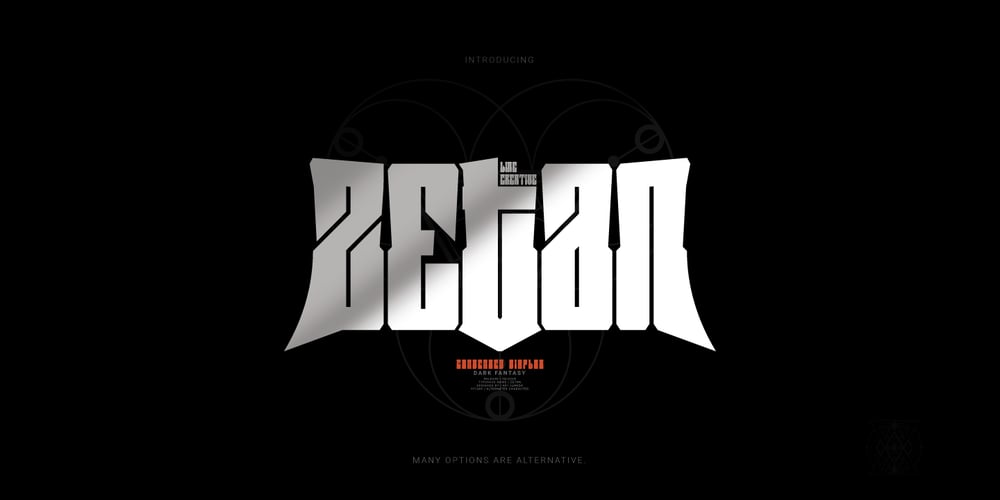
Zetan Font Family was designed by Ari Juanda and published by Linecreative. Zetan contains 1 styles and family package options. “Zetan Metal Modern Typeface” is a strong and bold typeface that combines the power of brutalism with the modern aesthetic of death metal.The Zetan font has a sturdy and solid shape and comes with alternative characters. When combined, these characters will produce writing that is tough, sharp, and powerful.Alternative options:Capital letters (2 alternative character options)Lowercae (1 alternative character choice)Numbers (3 alternative character options)Ampersand (1 alternative character choice)Combining options will expand the possibilities of your design experience.